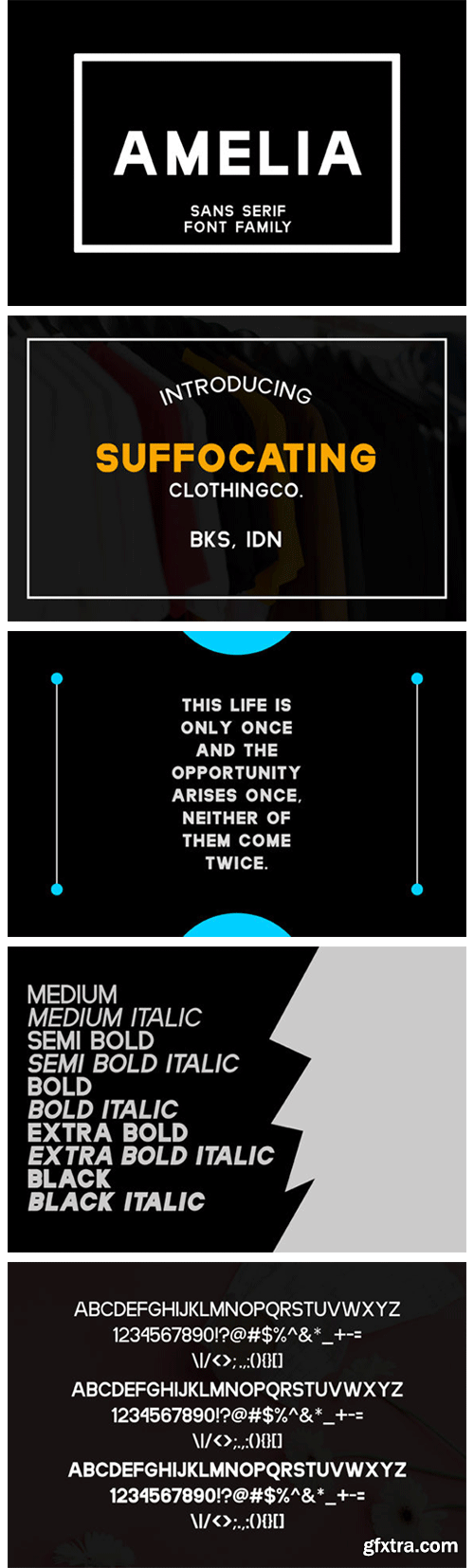
Amelia Font
Amelia is a neat, clean and elegant sans serif font that can easily fit into any project idea. Get it right away and see how it can make your designs stand out.